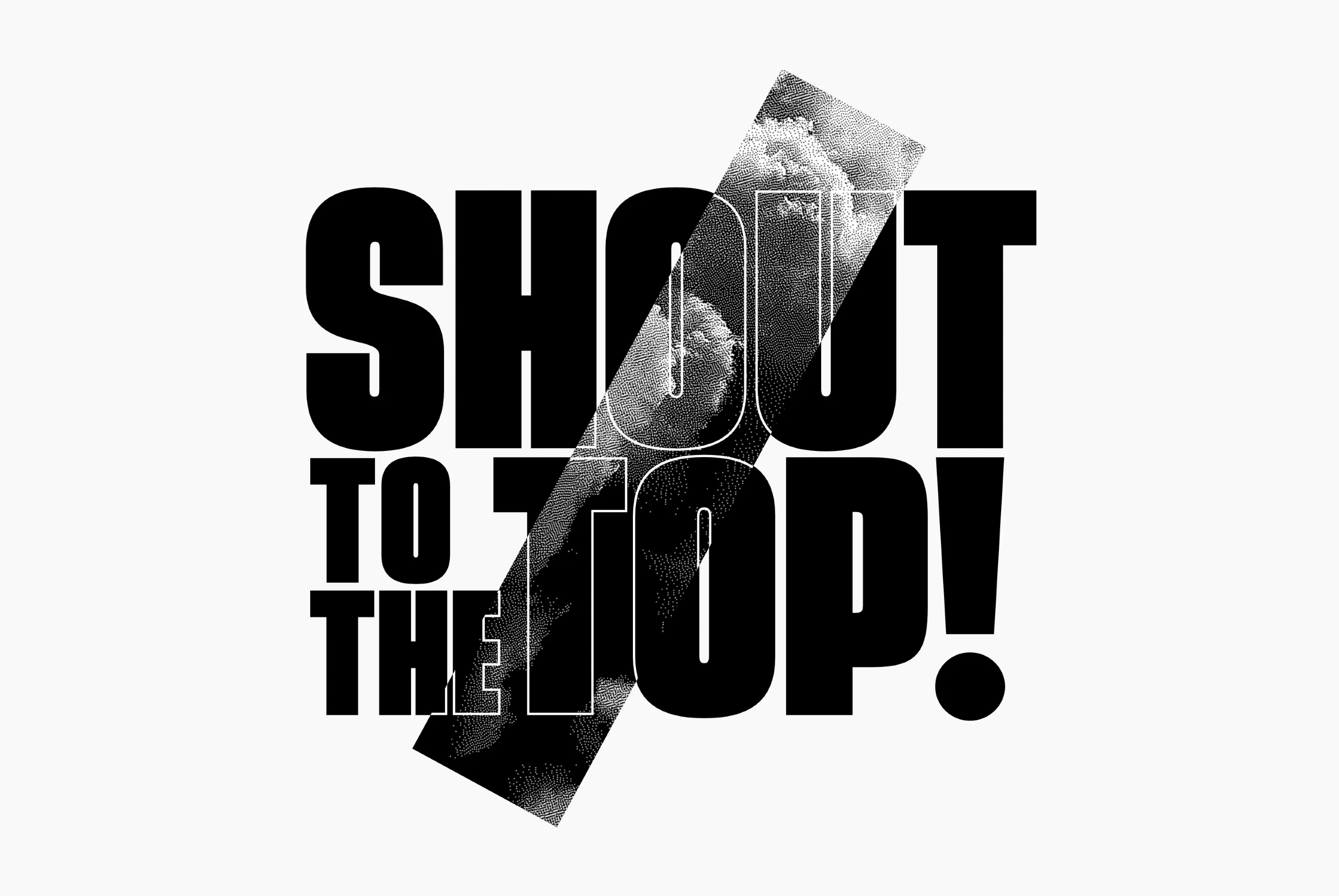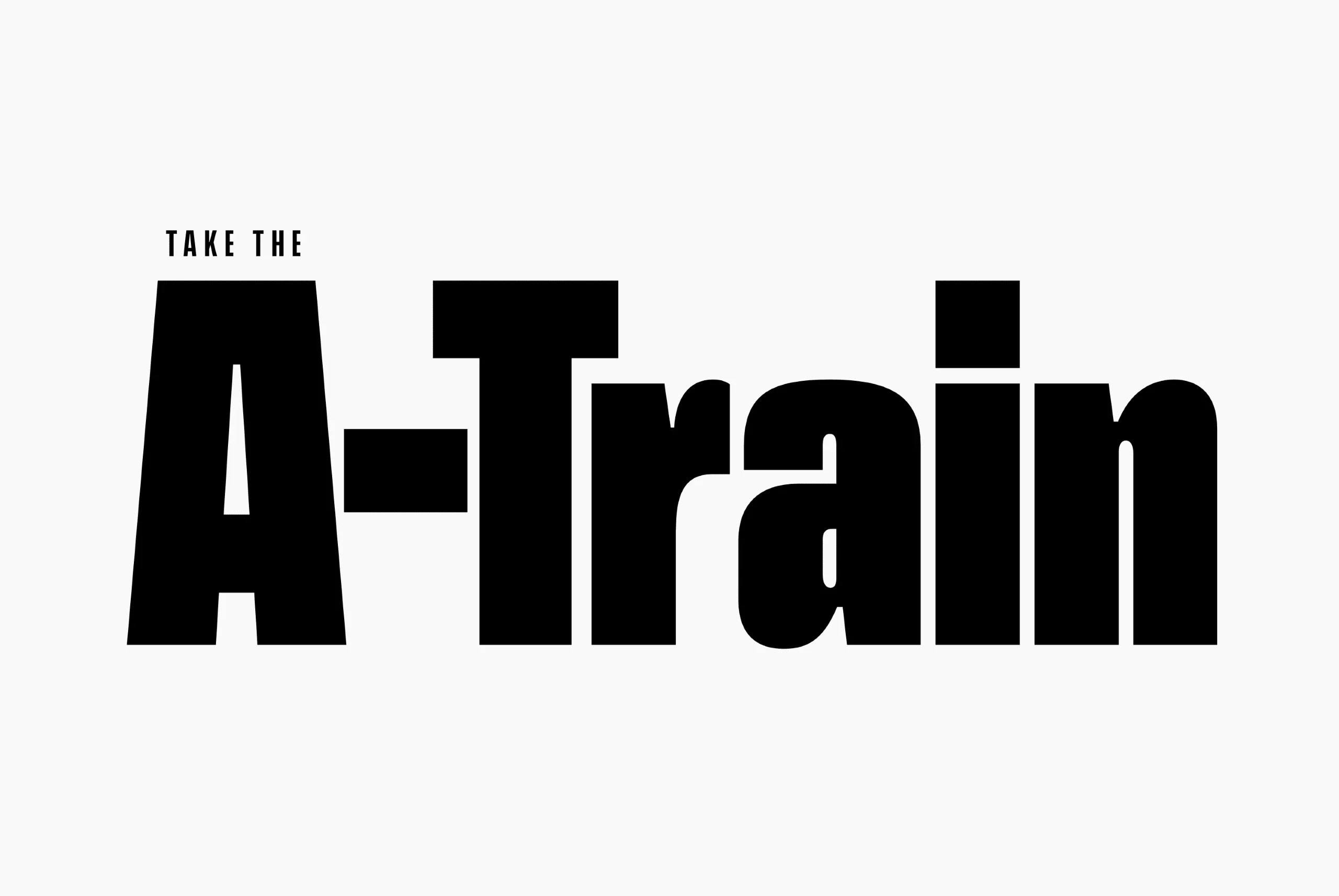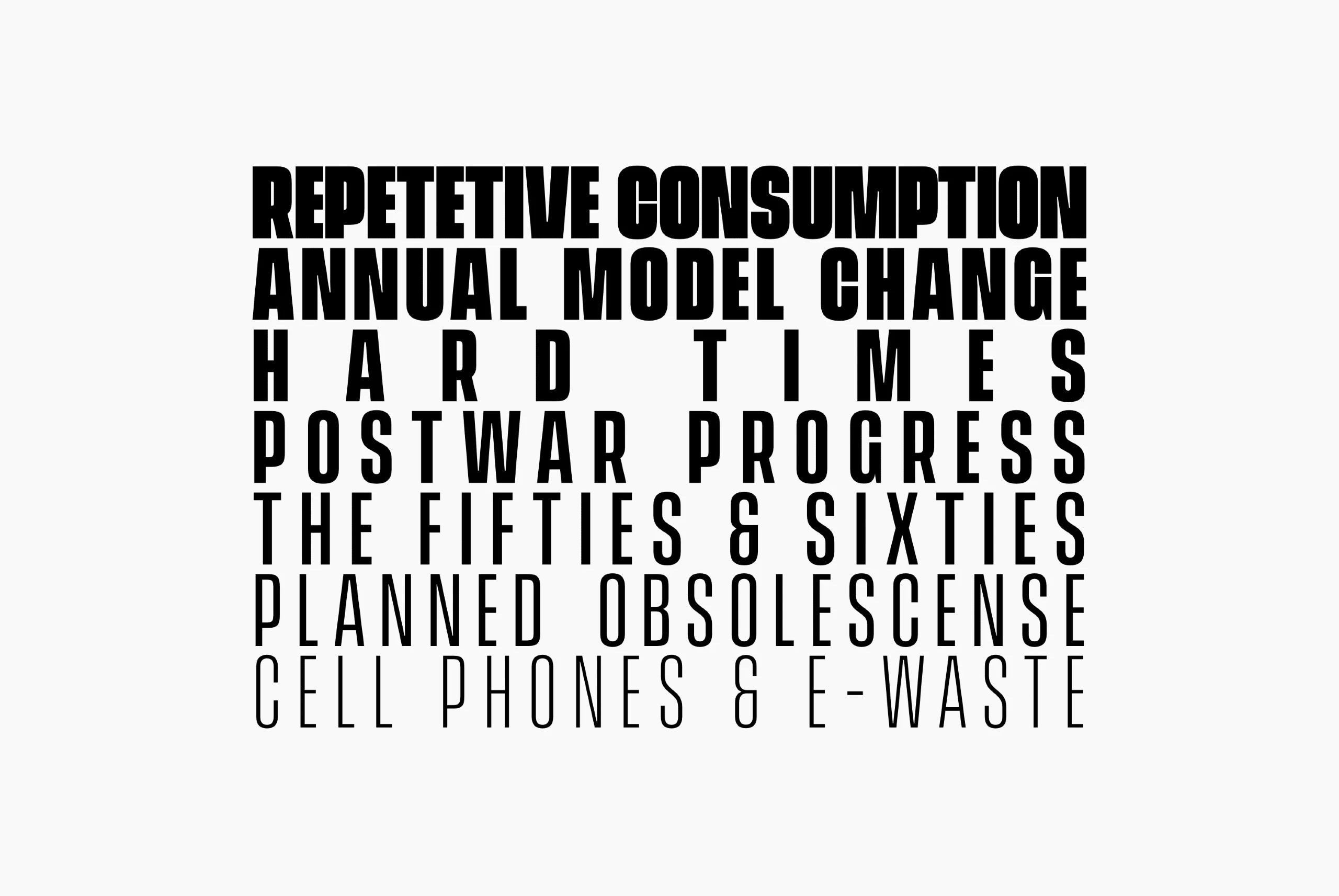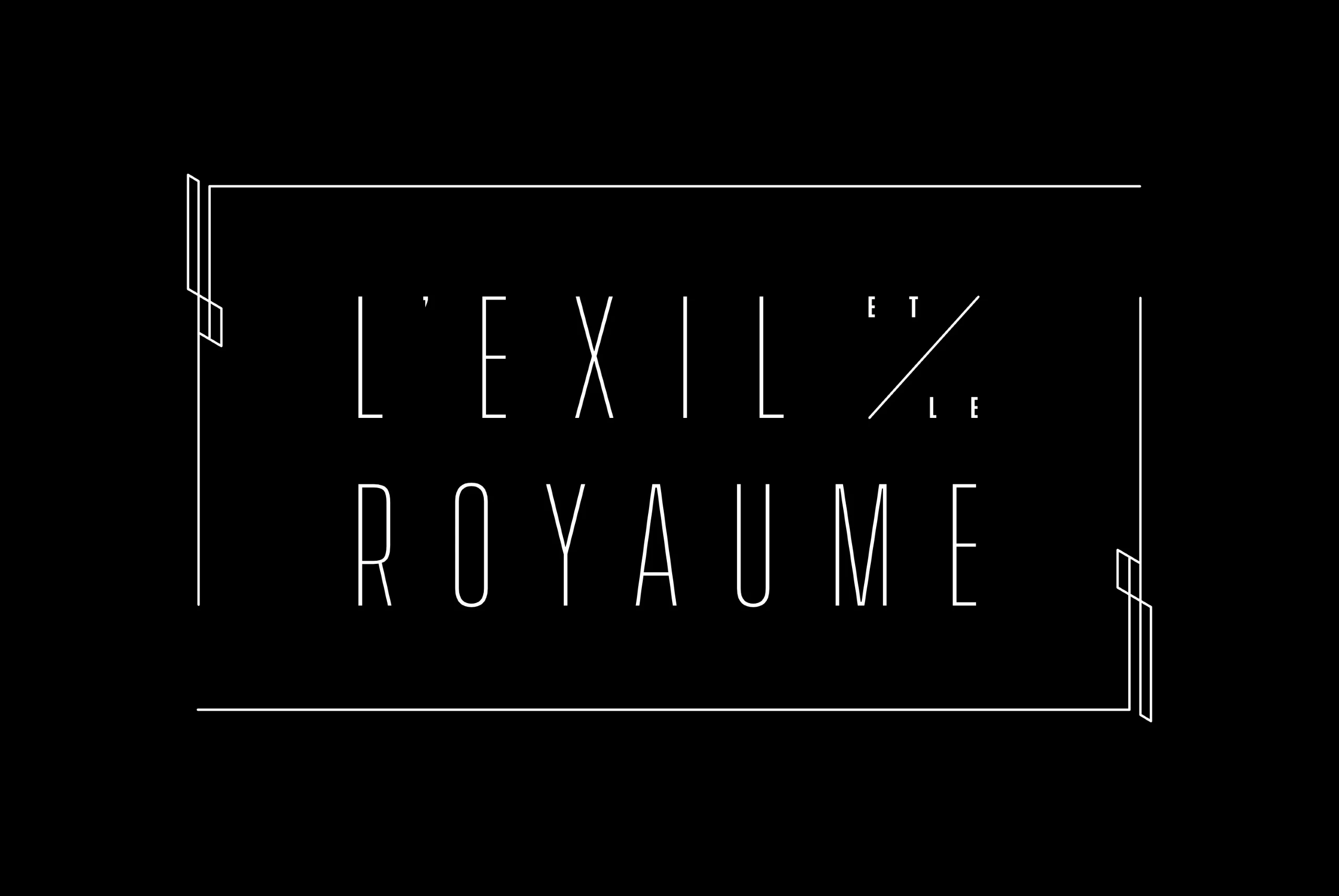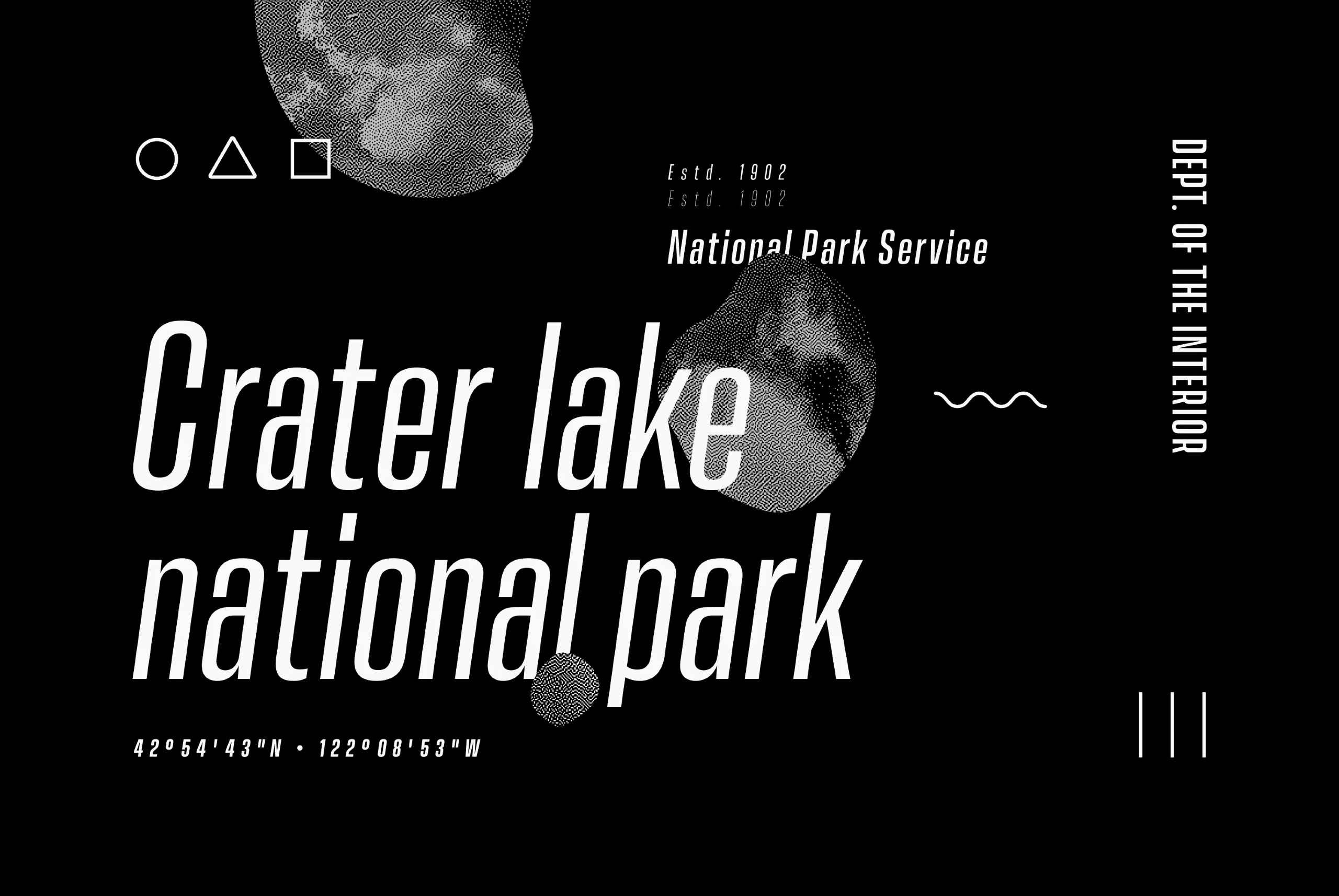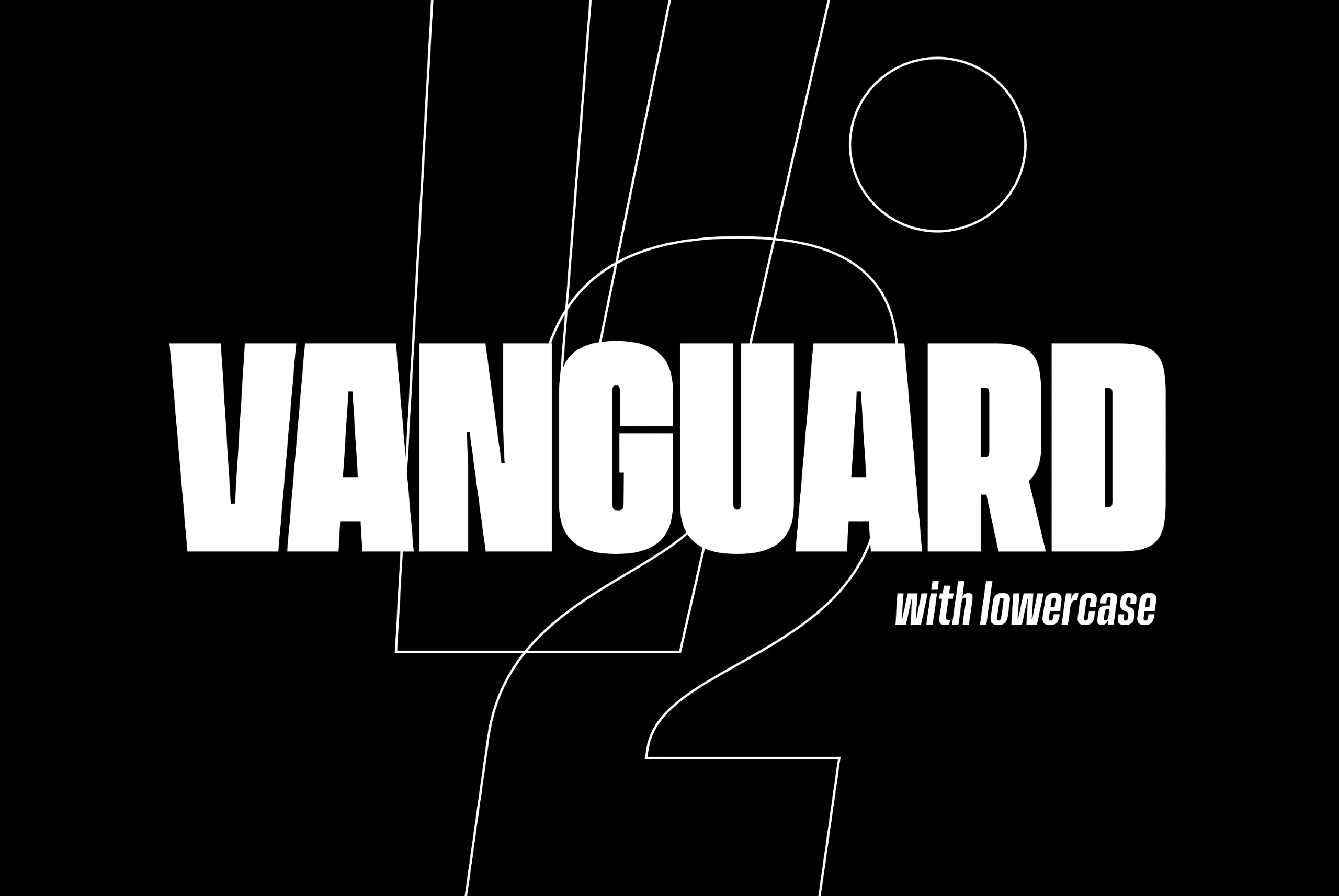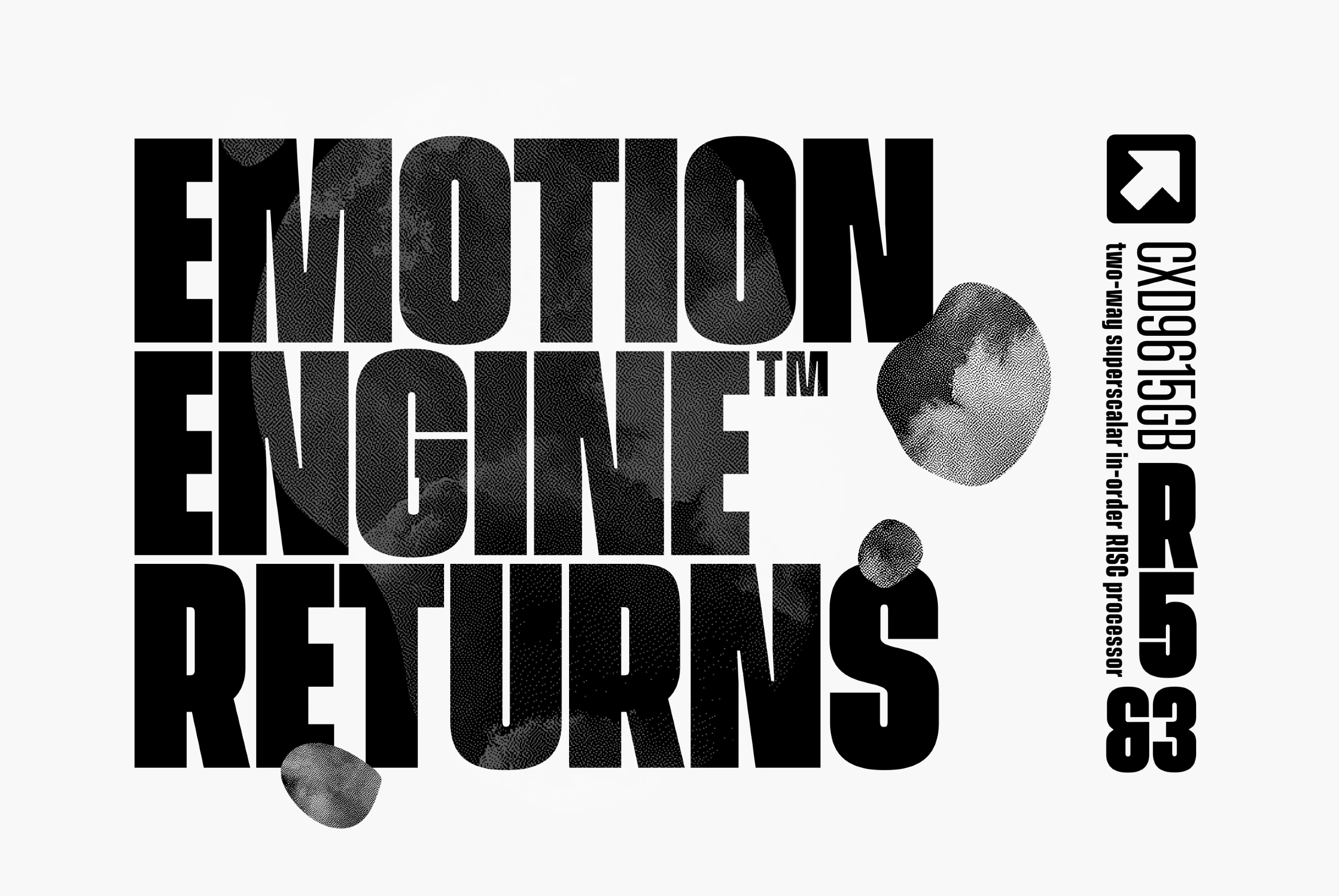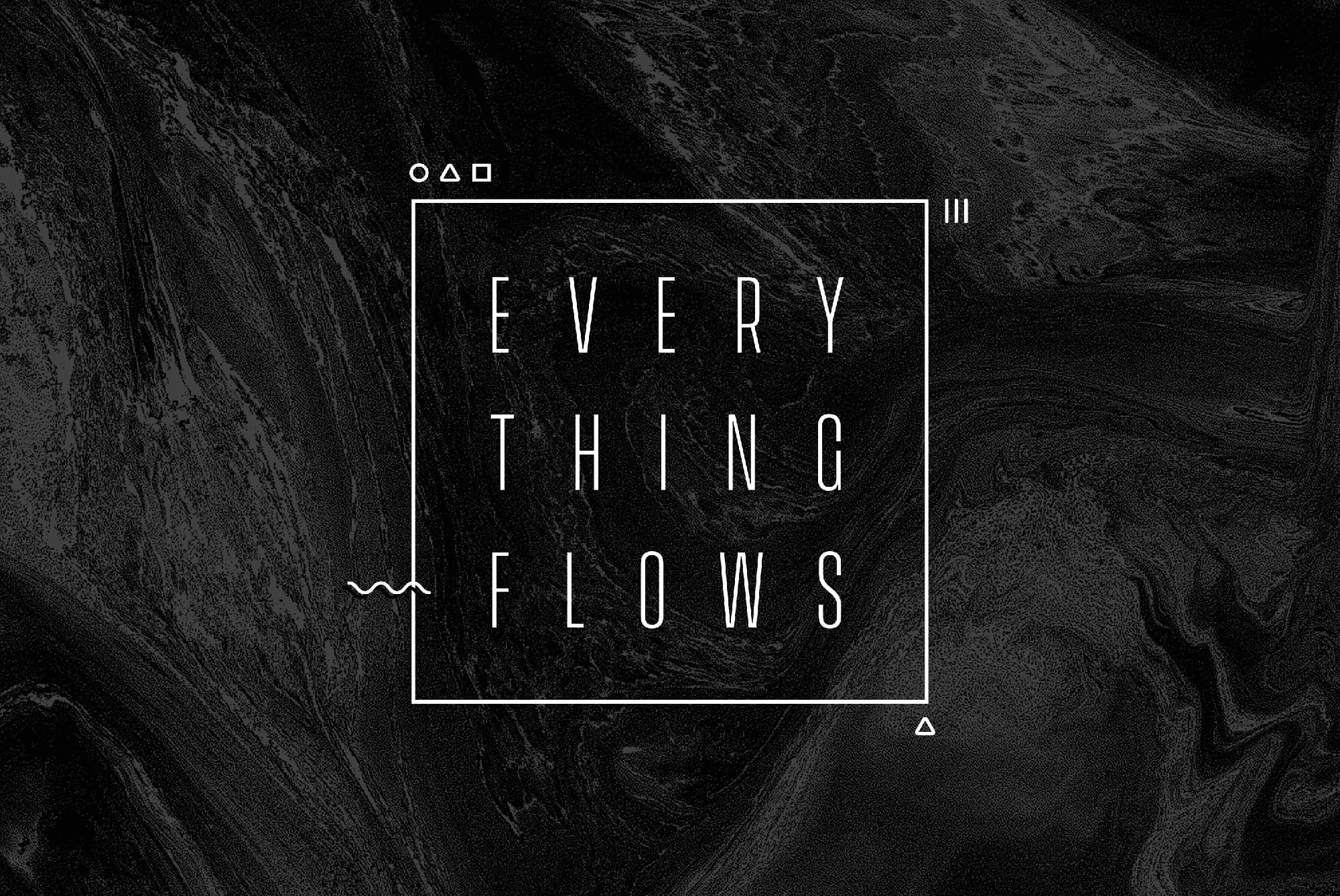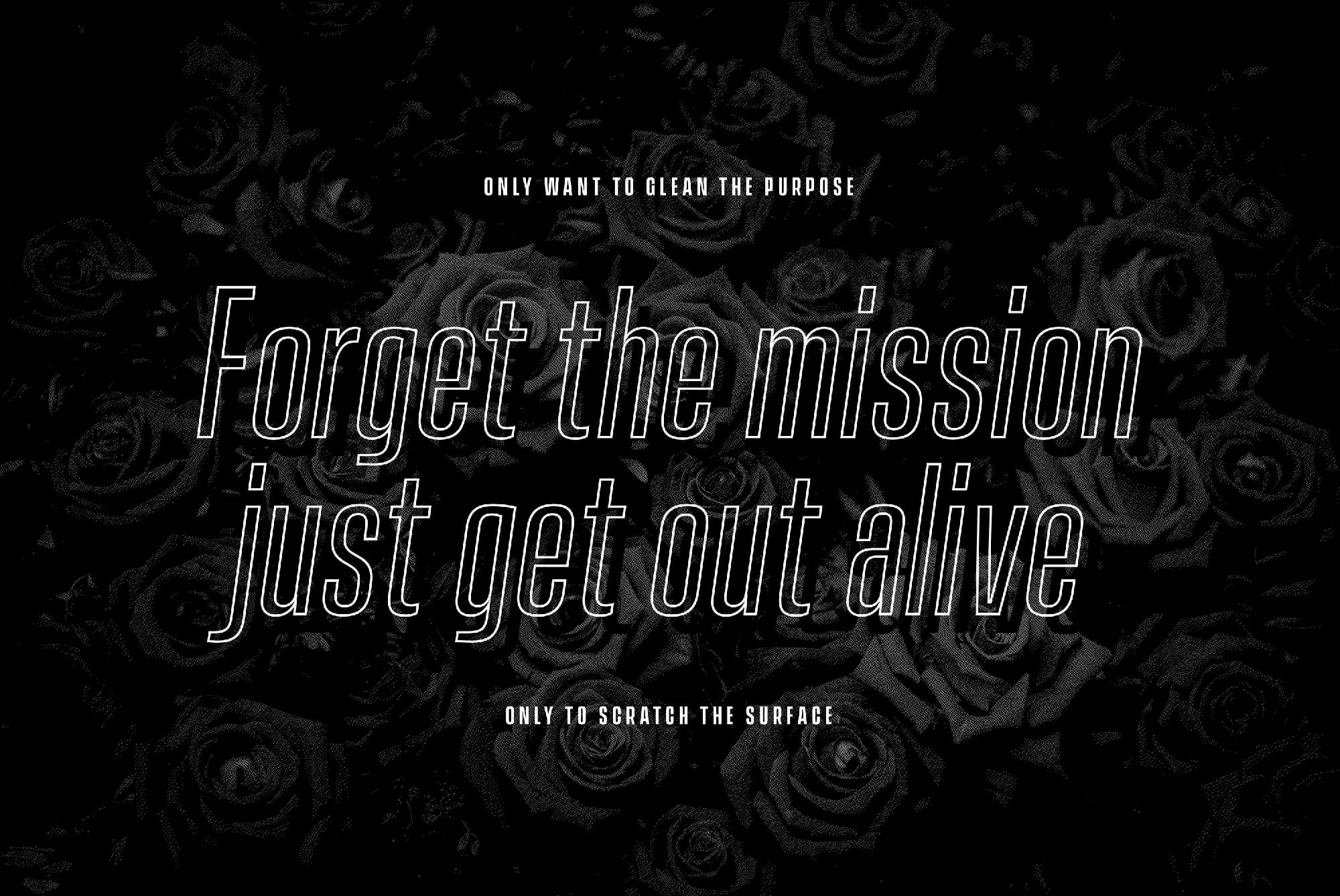
Vanguard
Vanguard Font Family
Vanguard CF is a powerful and elegant display typeface, constructed to maximize horizontal space. Built from sketches originally drawn in 2012, Vanguard’s eight weights span an elegant Thin to an arresting Heavy, with accompanying obliques. As with its sibling Integral CF, Vanguard makes a strong impression in print, headlines, video, and social media — whether paired with a contrasting typeface or on its own.
eight Weights in Latin & Stylistic Sets Script
Vanguard font by Connary Fagen Fonts — the words “SHOUT TO THE TOP!” in a bold, sans-serif, upright typeface, with a diagonal band of stippled clouds obscuring parts of “SHOUT” and “TOP”Vanguard font by Connary Fagen Fonts — the words “TAKE THE” above a large, bold “A-Train” in a sans-serif typefaceVanguard font by Connary Fagen Fonts — the words “REPETITIVE CONSUMPTION”, “ANNUAL MODEL CHANGE”, “HARD TIMES”, “POSTWAR PROGRESS”, “THE FIFTIES & SIXTIES”, “PLANNED OBSOLESCENCE”, and “CELL PHONES & E-WASTE” in sans-serif uppercase letters, with the top five lines in a bold weight and the bottom two lines in a thin weightVanguard font by Connary Fagen Fonts — the words L’EXIL ET LE ROYAUME in a thin sans-serif surrounded by a thin rectangular frame with geometric accents on the cornersVanguard font by Connary Fagen Fonts — the words “Crater lake national park” in large, white, sans-serif oblique letters, with smaller upright text “Estd. 1902 National Park Service” and “Dept. of the Interior” alongside abstract shapes and stippled circlesVanguard font by Connary Fagen Fonts — the word “VANGUARD” in a bold, sans-serif, upright typeface, with the words “with lowercase” in an italic sans-serif below it, all overlaid with thin white lines and a circle.Vanguard font by Connary Fagen Fonts — the words “EMOTION ENGINE RETURNS” in a distressed sans-serif, with a trademark symbol and three stippled organic shapes, and a vertical block of text “CXD9615GB R583 two-way superscalar in-order RISC processor” next to an arrow icon.Vanguard font by Connary Fagen Fonts — the words “EVERY THING FLOWS” in tall, condensed, upright sans-serif letters, framed by a thin white square with a wavy line on the left and geometric shapes on the cornersVanguard font by Connary Fagen Fonts — the words “Forget the mission just get out alive” in outlined, oblique sans serif letters, with smaller upright sans serif text above and below, all against a background of dark roses